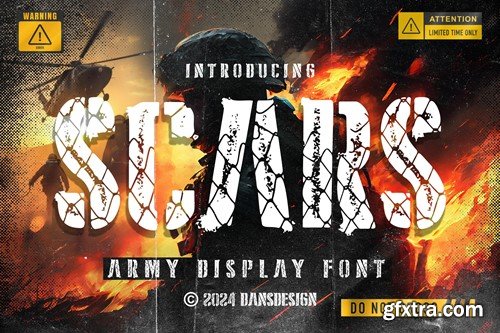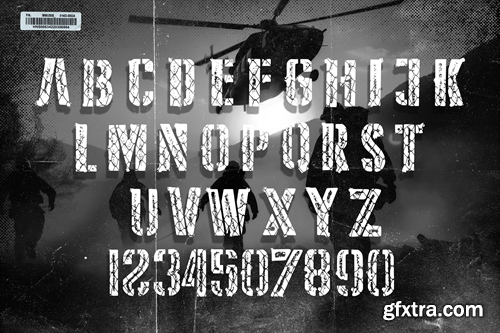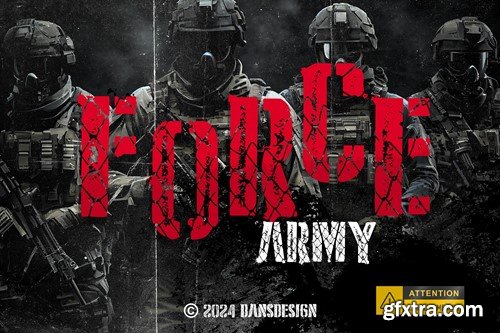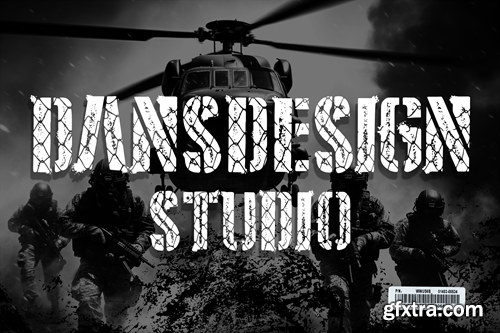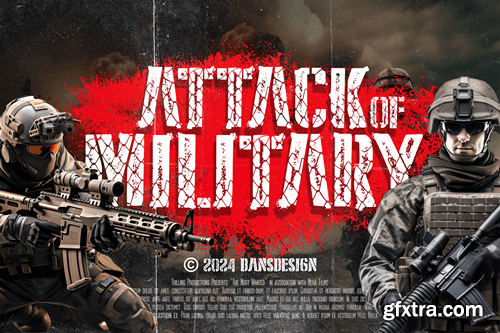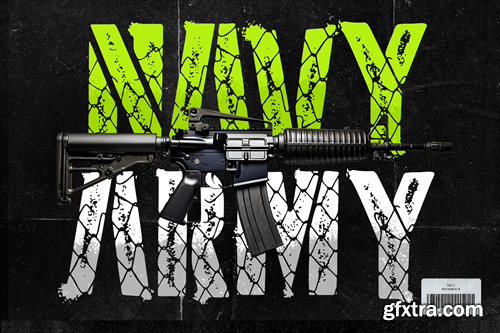
SCARS Display Stencil Army Font TNDM736
SCARS Display Stencil Army Font
SCARS Stencil Army Font a distinct, highly detailed. Marker Display Font. It would make a great choice for exquisite retro-urban designs, business branding, logos, Apparel designs, and more. SCARS Display Stencil Army Font (OTF/TTF) SCARS Display Stencil Army Font (WEB TT/PS) Featured : Accents (Multilingual characters) PUA encoded Numerals and Punctuation (OpenType Standard)